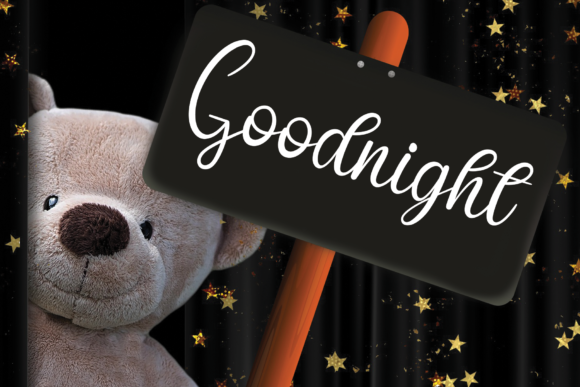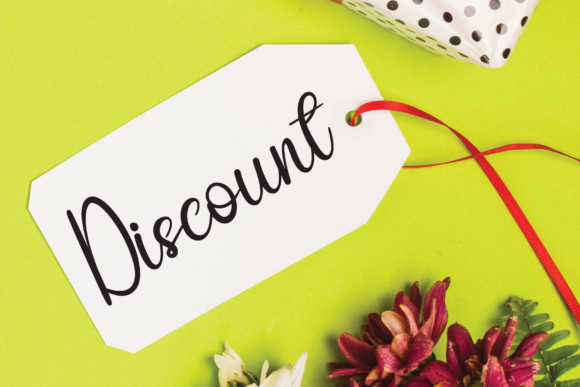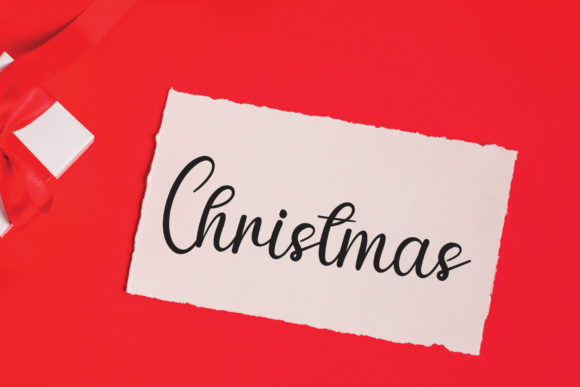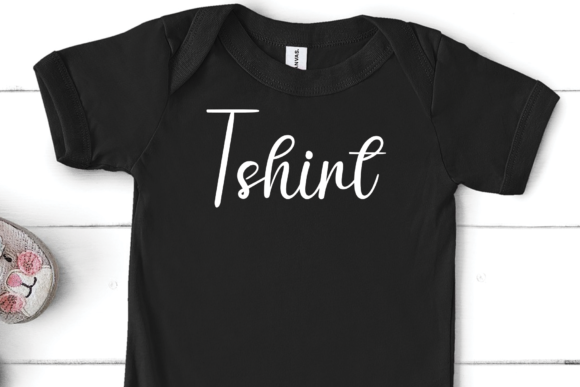
Have you ever been sitting at your desk, staring at a blank page, and suddenly, a beautiful idea pops into your head? The words flow effortlessly, and you can almost see the final product taking shape. This is exactly what happened when designers discovered the Birds Font.
This enchanting script font is more than just a pretty face – it’s a tool designed to help you bring your most romantic and whimsical ideas to life. With its beautiful curves and elegant lines, Birds Font is the perfect choice for any project that requires a touch of sweetness and sophistication.
As a PUA-coded font, Birds Font makes it easy to access all the glyphs and swashes you need to create stunning, hand-written effects. Whether you’re a professional designer or a creative enthusiast, Birds Font is a valuable addition to your toolkit, guaranteed to inspire your next masterpiece.
Birds Font Key Features
- Unique Characteristics: The Birds Font features a unique, hand-drawn design with intricate details and subtle texture, giving it a distinctive and eye-catching appearance.
Birds Font Review
First off, I’d like to say that Birds Font has some really great aspects to it ✨. The font’s unique, hand-drawn style is a great fit for projects that need a playful, whimsical touch. The font family is also pretty comprehensive, with a wide range of weights and styles to choose from.
The Birds Font also features some lovely details, such as the subtle texture and imperfections that give the font a more organic feel. This can be particularly effective in designs where you want to convey a sense of handmade quality or character.
- Unique, hand-drawn style
- Comprehensive font family
- Lovely texture and imperfections
However, there are a few limitations to consider ⚠️. One of the main issues is that the font can be a bit difficult to read at smaller sizes, which may limit its usability in certain contexts. Additionally, the font’s style can be a bit overwhelming if overused, so it’s essential to use it judiciously.
Overall, I’d say that Birds Font is a great choice for projects where you want to add a touch of personality and whimsy. Just be sure to use it thoughtfully and in the right context.
The Birds Font is ideal for:
- Children’s books and educational materials.
- Wildlife and nature-themed designs.
- Whimsical and playful branding.